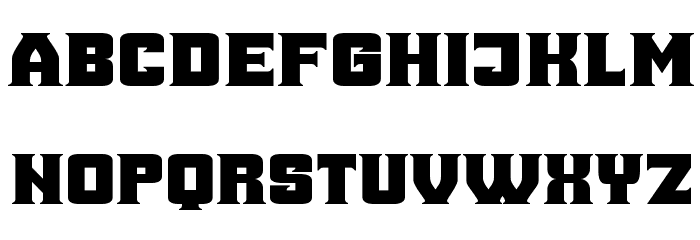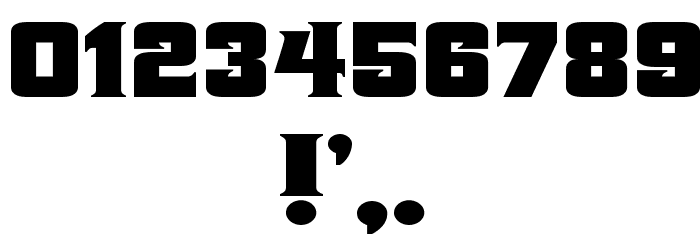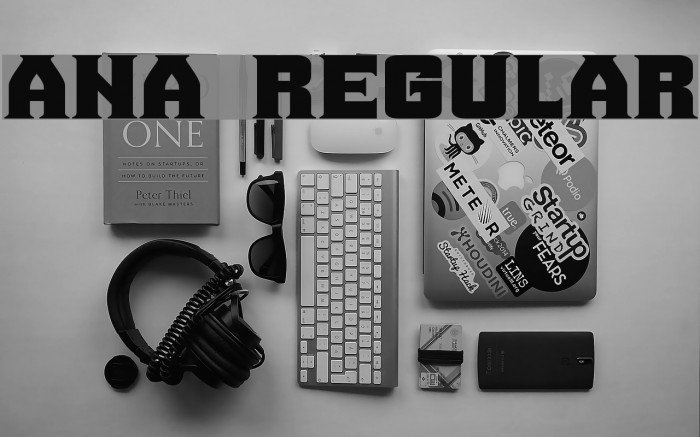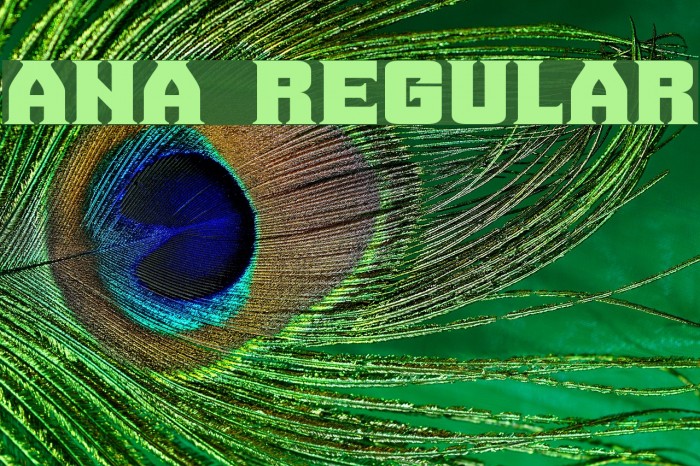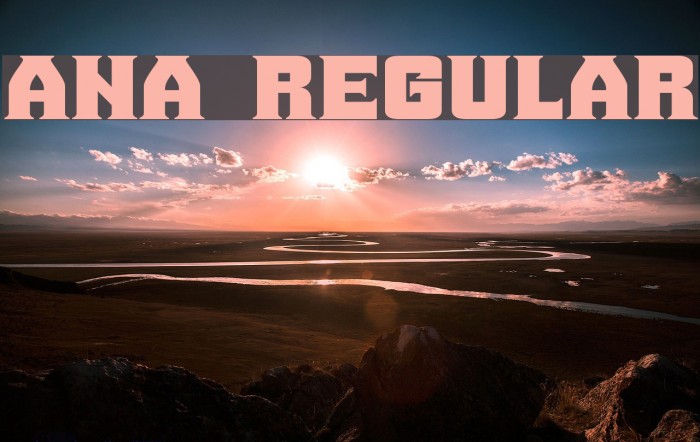
Ana Regular Font
This font exhibits a bold and robust design with strong geometric shapes and a distinct presence. The characters are crafted with thick strokes and sharp angles, giving them a powerful and authoritative appearance. The uppercase letters are particularly striking, with a blocky and solid form that commands attention. The lowercase letters maintain the same sturdy design, ensuring consistency throughout the typeface. Numbers are equally bold, with a uniform thickness that complements the overall style. Special characters are designed with the same attention to detail, ensuring they fit seamlessly with the rest of the font. This typeface is ideal for projects that require a strong visual impact.
A bold, geometric font with strong, authoritative characters.
- Proposed Projects: Ideal for headlines, posters, branding, and any design requiring a strong visual impact.
- Category: Slab Serif